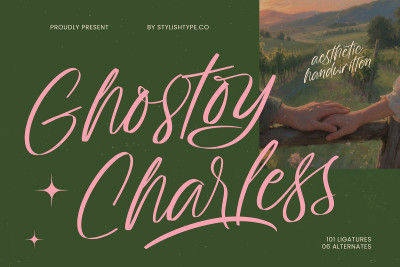
Ghostoy Charless Aesthetic Script Font
Ghostoy Charless Aesthetic Script brings a confident, polished presence to any design, from business materials to creative campaigns.